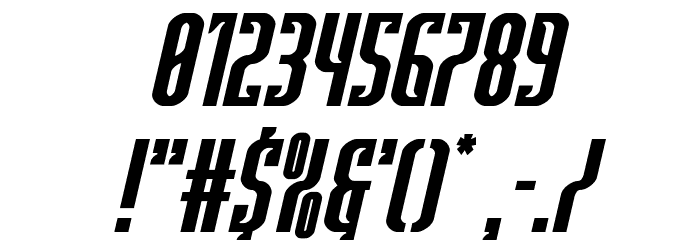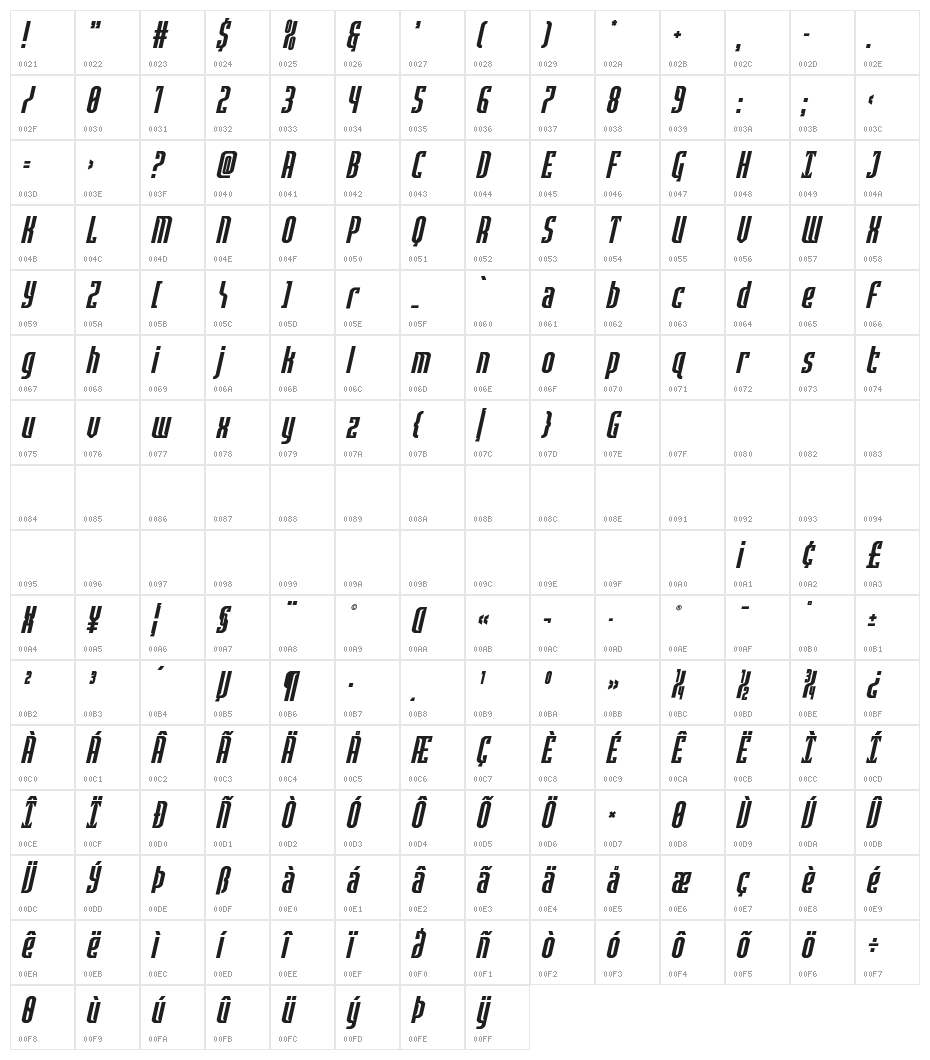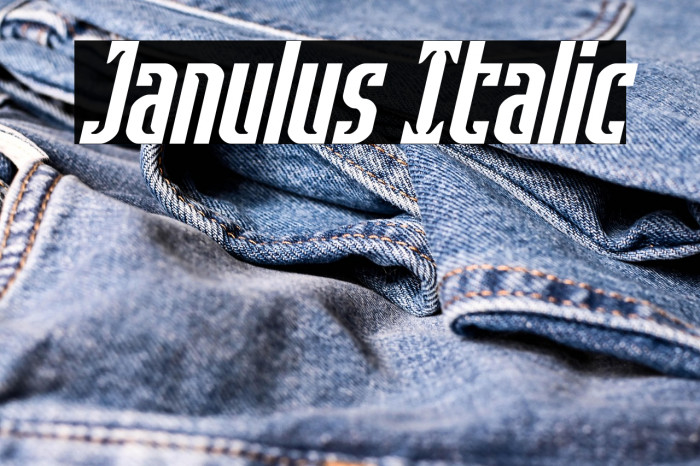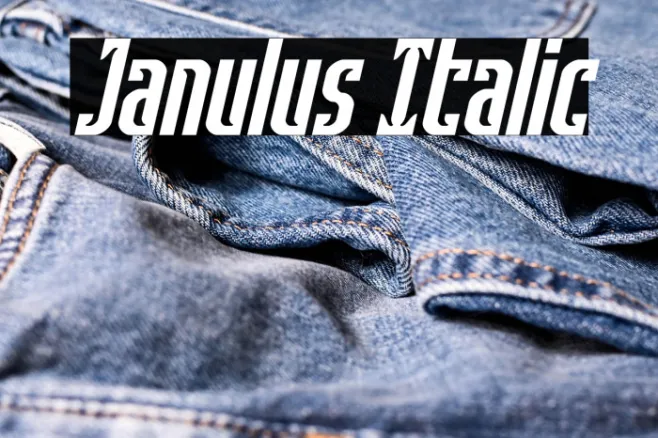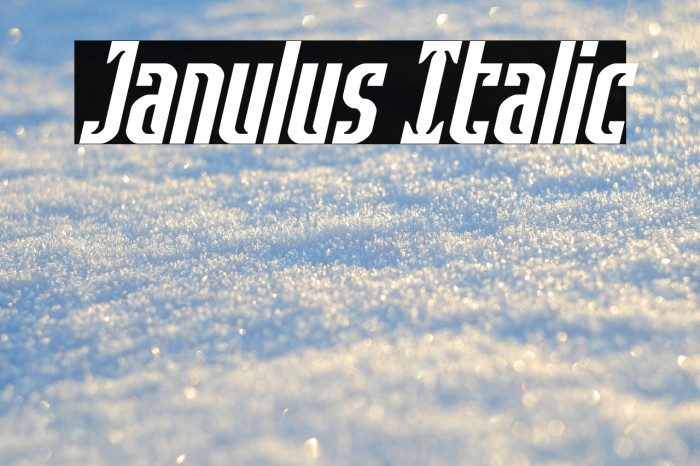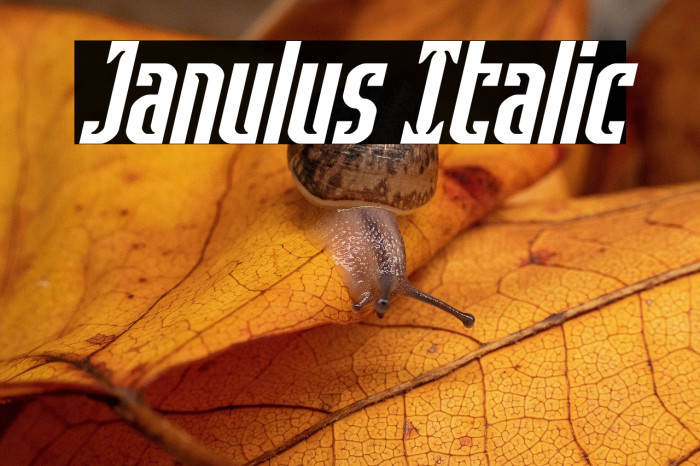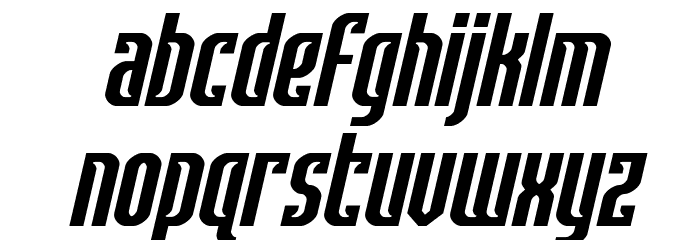
Janulus Italic Font
Janulus Italic Description
This font features a bold, italicized style with a strong, dynamic presence. The characters are slanted, giving a sense of motion and energy. The strokes are thick and consistent, providing a robust appearance. The uppercase and lowercase letters maintain a uniform style, with sharp angles and clean lines. The numbers and special characters follow the same bold and italicized design, ensuring a cohesive look across all elements. This font is ideal for making a statement, with its eye-catching and assertive style.
| Proposed Projects | Ideal for sports branding, dynamic posters, and eye-catching headlines. |